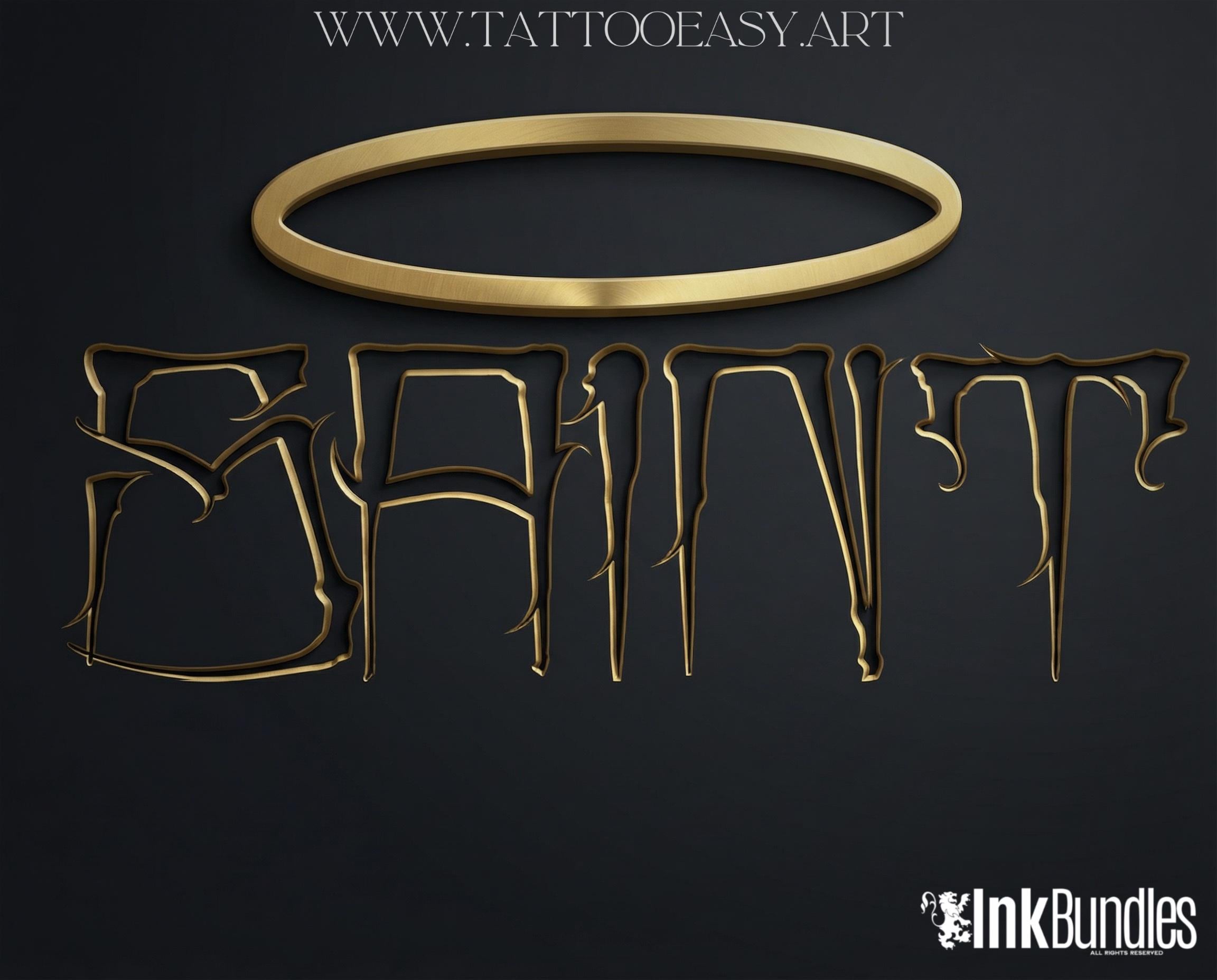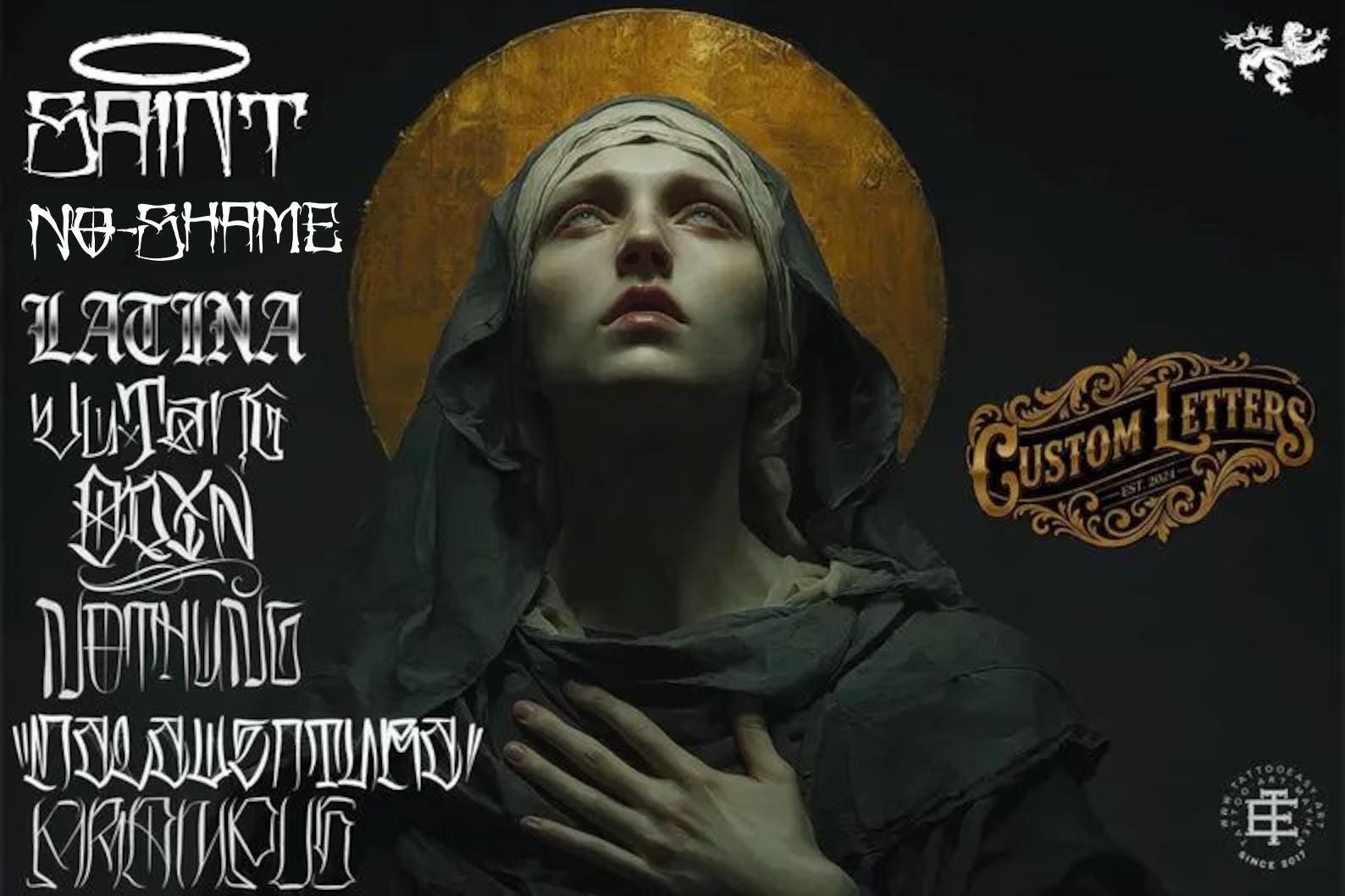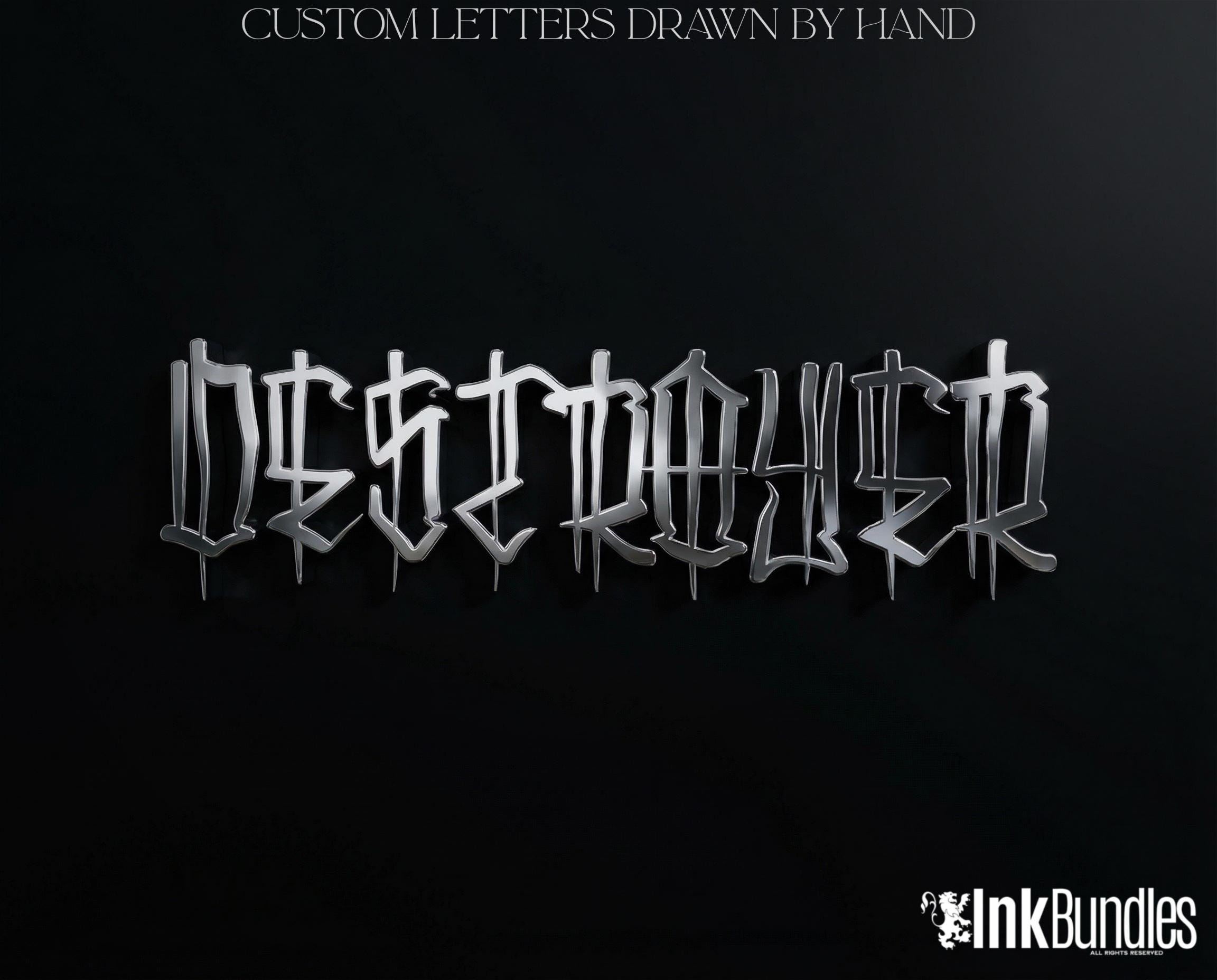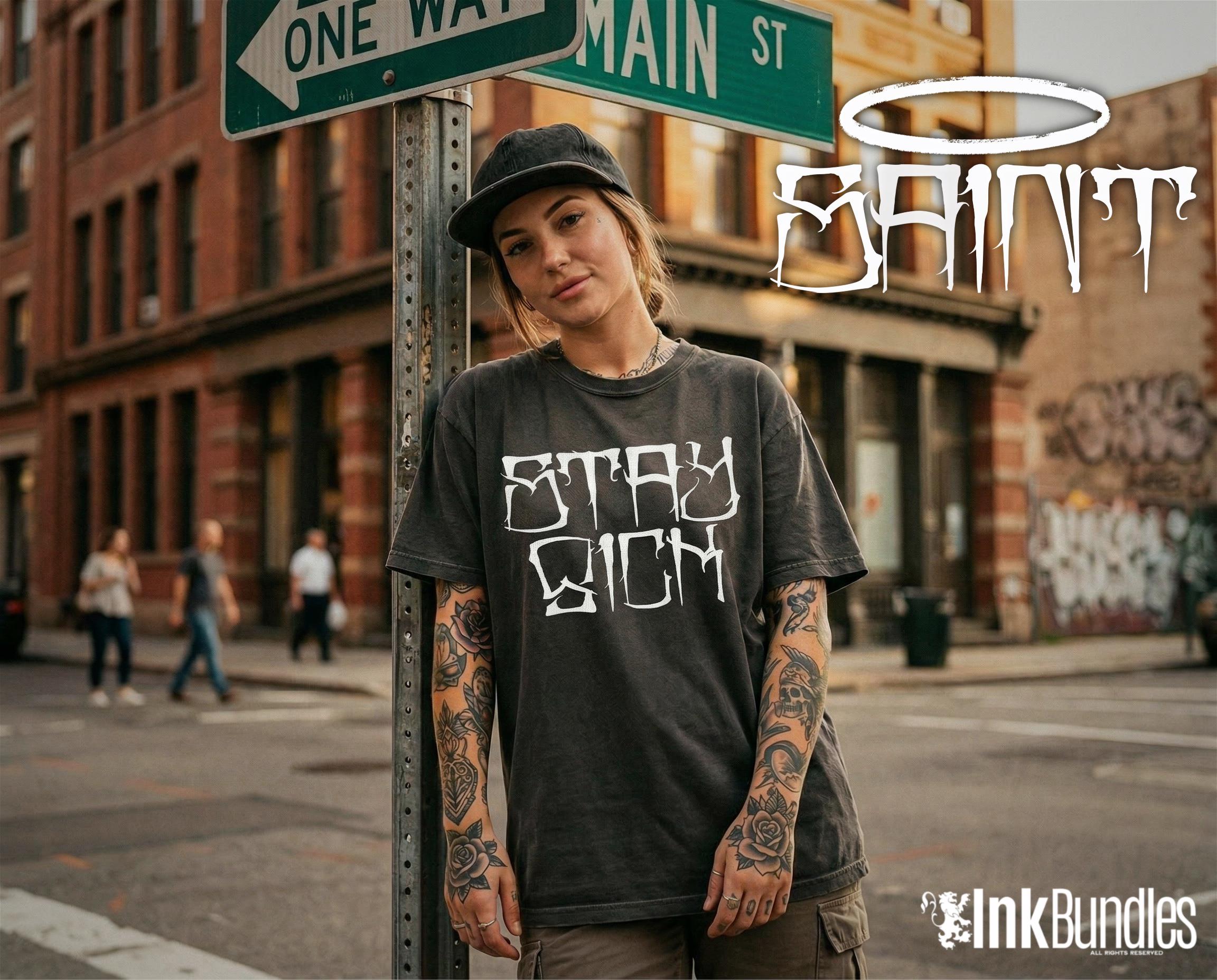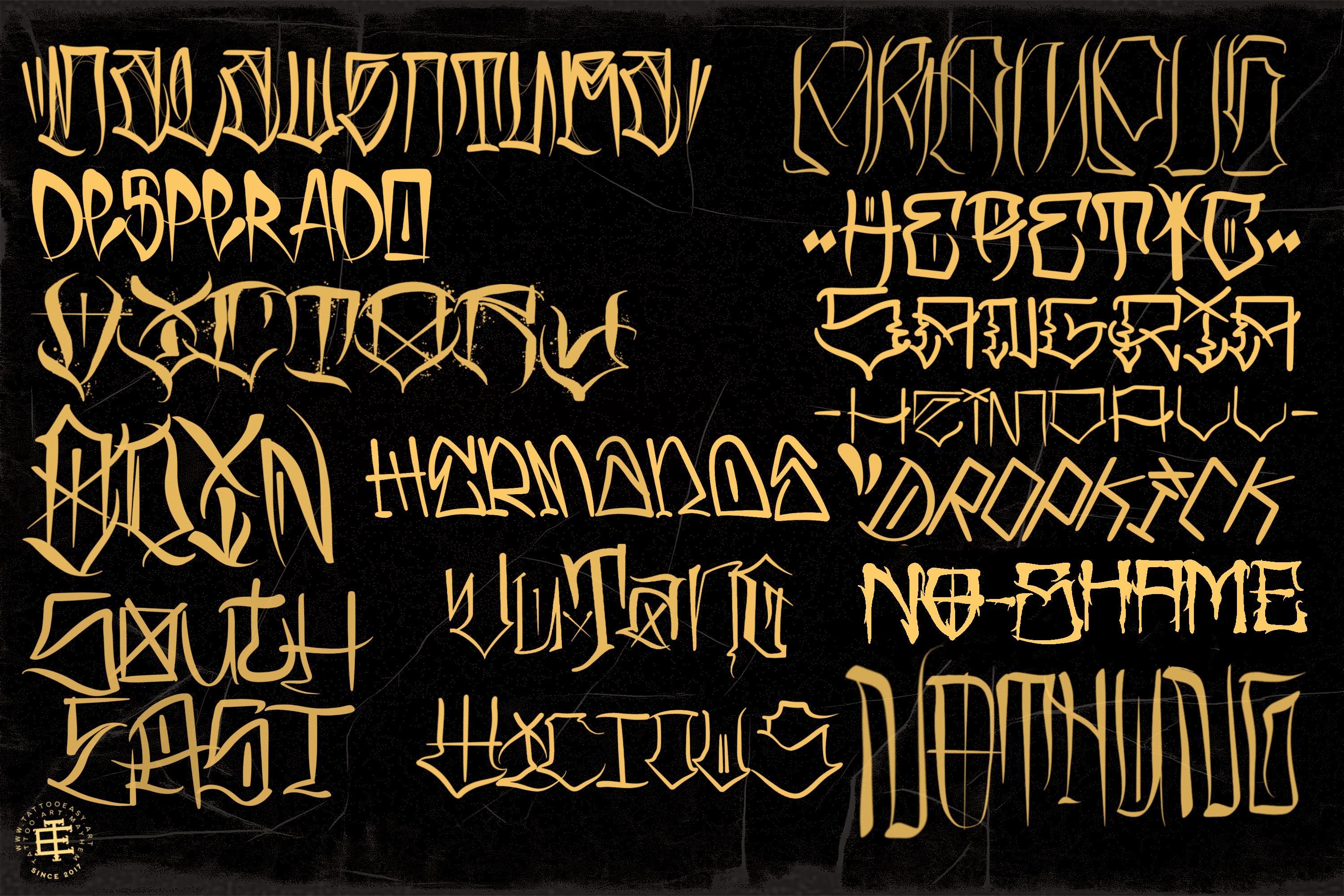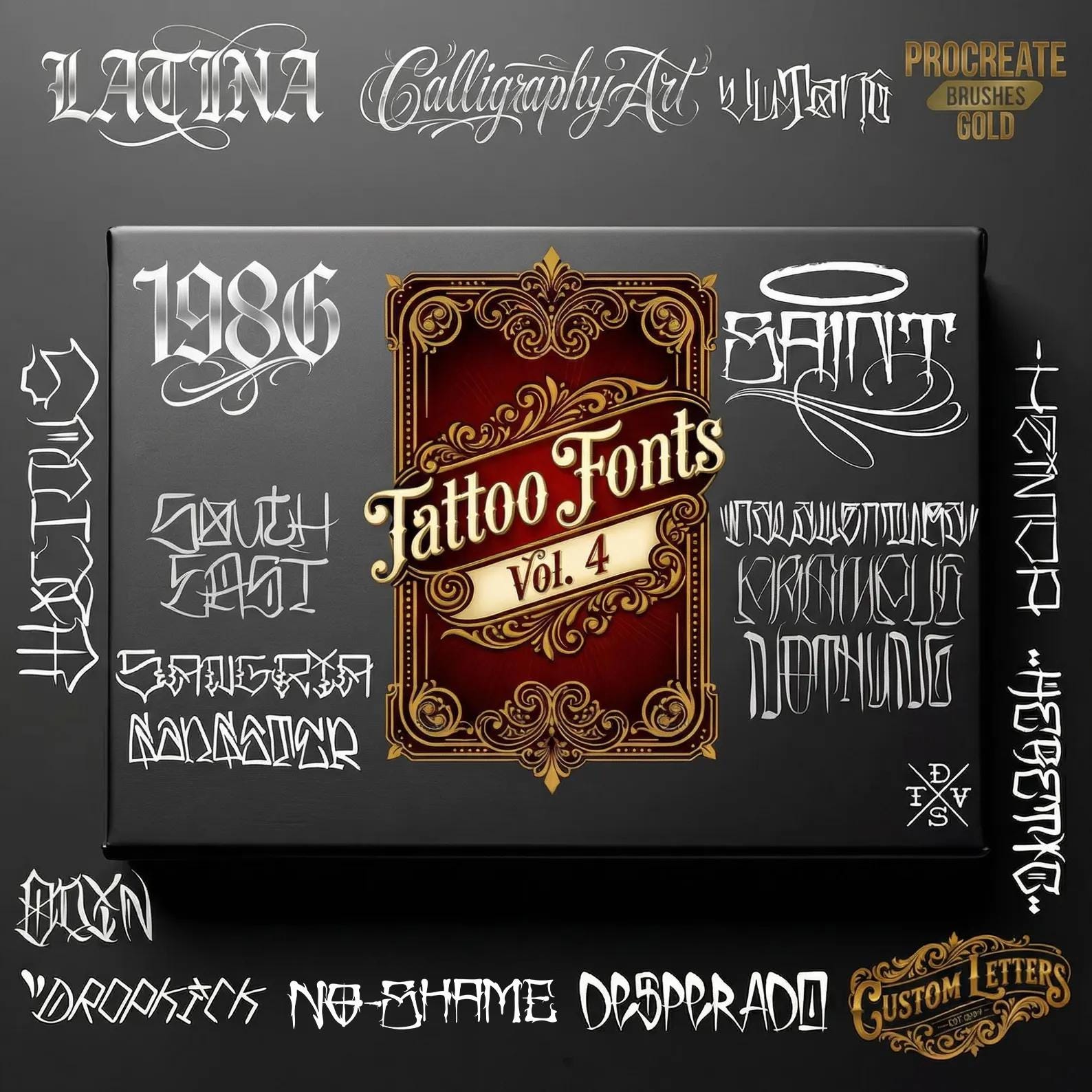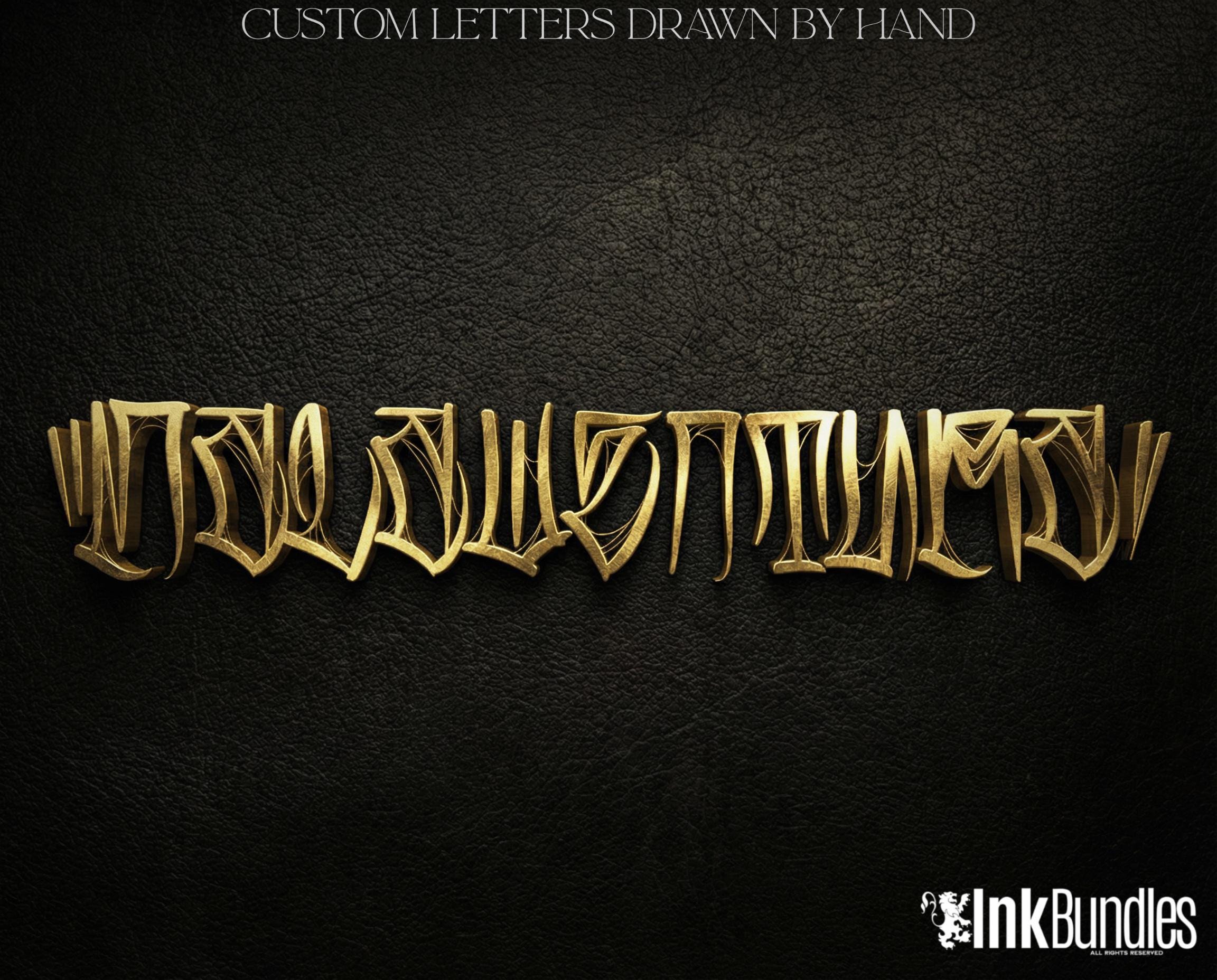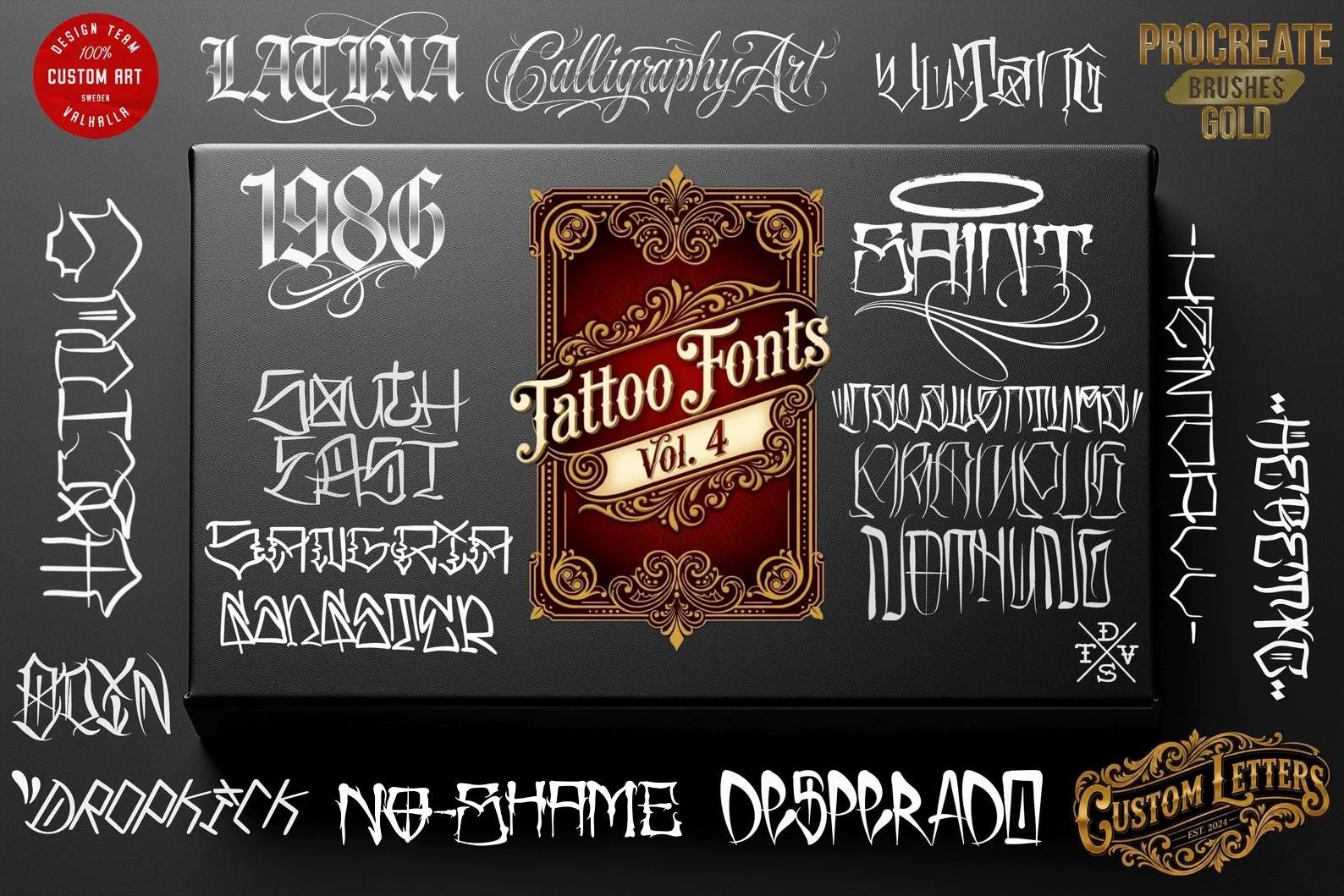
Tattoo Lettering Bundle for Procreate – Chicano Blackletter Fonts, Custom Script Brushes & PNG Lettering Pack
Introducing Tattoo Lettering Bundle Vol. 4 – Elevate Your Art!
Upgrade your digital art with the ultimate Procreate Tattoo Lettering Kit. Easily create stunning, professional custom text designs, stencils, and flash right on your iPad.
18 hand drawn fonts & 100+ elegant decorative elements + extras
Alphabets included:
Saint ~ Dtv 2026
Hustler ~ 120+ letters chicano script
Latina ~ Dtv 2026
Dropkick
Vicious
Destroyer
Los pollos hermanos
Krampus
Heretic
Heimdall
South east
Desperado
Wild
Nothung
Odin
Wu-tang
Malaventura
Sangria duo
Victory
Step up your creative game with our latest Tattoo Lettering Bundle for Procreate – Volume 4, the most anticipated collection yet! Every single letter in this bundle has been carefully hand-drawn, blending the raw, authentic spirit of tattoo culture with unparalleled versatility. Perfect for tattoo art, sticker designs, T-shirt graphics, and logo work, this collection offers endless possibilities to bring your boldest ideas to life.
With over 1000 unique designs, this bundle is a powerhouse of inspiration, giving artists all around the globe the tools to craft stunning and professional-quality lettering. Loved by tattoo enthusiasts, urban designers, and creative professionals worldwide, this volume continues the legacy of excellence established by our previous collections.
Whether you're designing for clients or creating personal projects, Tattoo Lettering Bundle Vol. 4 is your go-to resource for iconic and impactful lettering. Let your imagination run wild and watch your designs make a statement that lasts forever.
Unleash your creativity today!